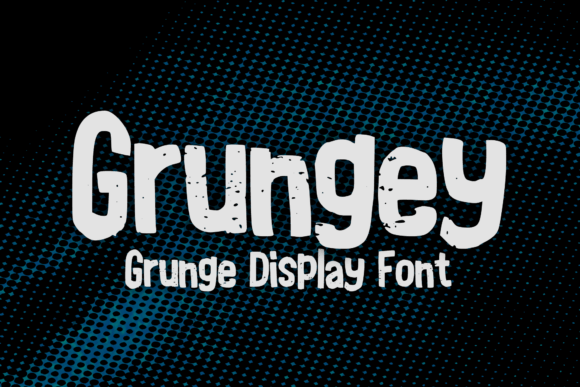
Grungey Font: The Ultimate Guide to Adding a Casual Touch to Your Designs
Are you looking for a font that can add a fun and casual touch to your designs? Look no further than Grungey, a bold grunge display font that’s perfect for a wide range of projects. In this article, we’ll take a closer look at Grungey and explore its features, uses, and benefits. Whether you’re a designer, artist, or DIY enthusiast, you’ll love the versatility and style of Grungey.
What is Grungey Font?
Grungey is a fun and bold grunge display font that’s designed to add a casual touch to your designs. Its unique and versatile style makes it perfect for a wide range of projects, from t-shirts and greeting cards to stickers and posters. With Grungey, you can create lovely designs that are sure to grab attention and leave a lasting impression.
Features of Grungey Font
Grungey font has several features that make it stand out from other fonts. Some of its key features include:
- Bold and Grunge Style: Grungey has a bold and grunge style that’s perfect for adding a casual touch to your designs.
- Versatile: Grungey is incredibly versatile and can be used for a wide range of projects, from t-shirts and greeting cards to stickers and posters.
- Easy to Read: Despite its grunge style, Grungey is easy to read and can be used for both headings and body text.
- Unique: Grungey has a unique style that’s sure to grab attention and leave a lasting impression.
Uses of Grungey Font
Grungey font can be used for a wide range of projects, including:
- T-Shirts: Grungey is perfect for designing t-shirts, hoodies, and other apparel.
- Greeting Cards: Grungey can be used to create unique and stylish greeting cards for special occasions.
- Stickers: Grungey is great for designing stickers, labels, and other adhesive materials.
- Posters: Grungey can be used to create eye-catching posters for events, promotions, and other purposes.
- Social Media Graphics: Grungey can be used to create social media graphics, including Facebook posts, Instagram stories, and Twitter headers.
Benefits of Using Grungey Font
There are several benefits to using Grungey font, including:
- Increased Versatility: Grungey can be used for a wide range of projects, making it a great addition to any designer’s toolkit.
- Unique Style: Grungey has a unique style that’s sure to grab attention and leave a lasting impression.
Tips and Tricks for Using Grungey Font
Here are some tips and tricks for using Grungey font:
- Experiment with Different Sizes and Colors: Experiment with different sizes and colors to find the perfect combination for your design.
- Use Grungey with Other Fonts: Use Grungey with other fonts to create a unique and stylish design.
- Add Texture and Patterns: Add texture and patterns to your design to make it more visually appealing.
- Keep it Simple: Keep your design simple and avoid clutter to ensure that your message gets across.
Grungey font is a fun and bold grunge display font that’s perfect for adding a casual touch to your designs. With its unique and versatile style, Grungey can be used for a wide range of projects, from t-shirts and greeting cards to stickers and posters. Whether you’re a designer, artist, or DIY enthusiast, you’ll love the versatility and style of Grungey. So why wait? Download Grungey font today and start creating lovely designs!